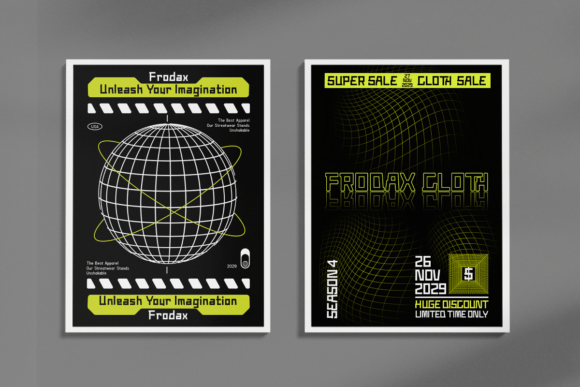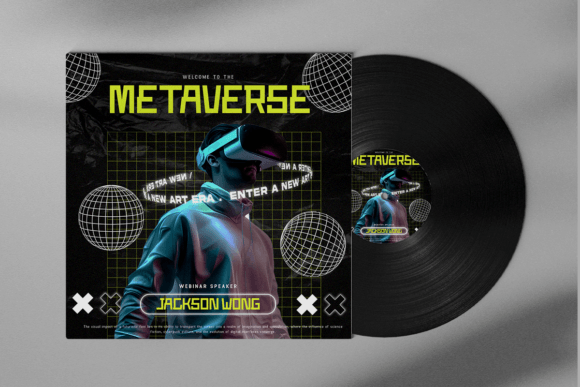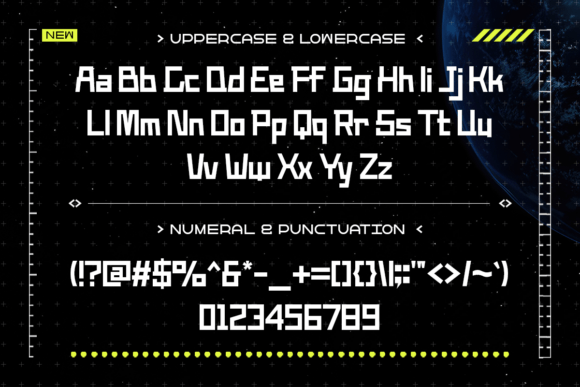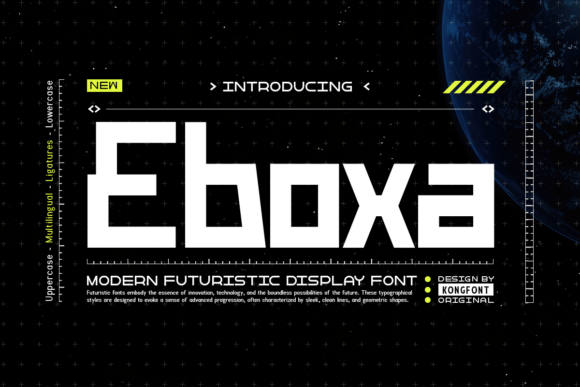
Introduction to Eboxa Font
Eboxa Futuristic Font is a sleek and modern typeface with a futuristic vibe, perfect for tech-inspired designs, sci-fi projects, gaming logos, and digital branding.
Its clean lines and sharp edges make it ideal for creating a bold, high-tech aesthetic Comes in OTF and TTF formats with multilingual support for versatile use.
Key Features of Eboxa Font